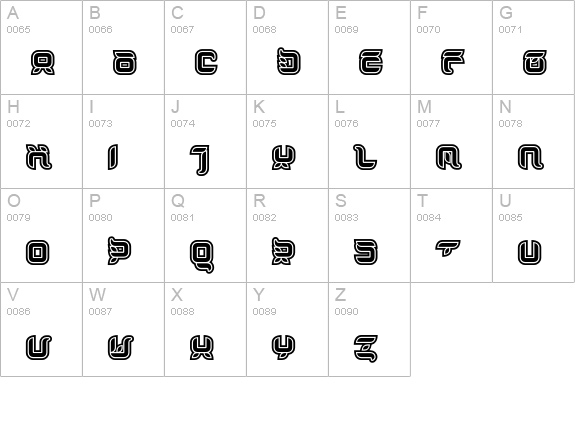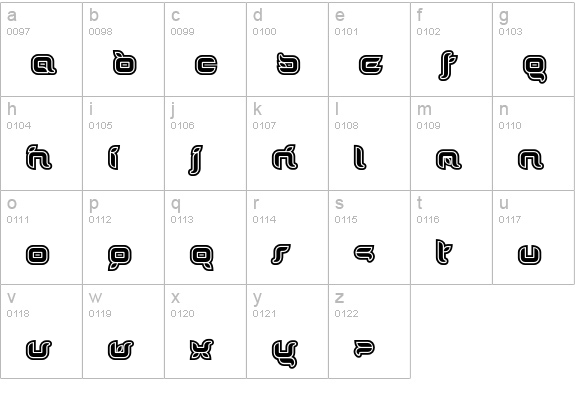
DorisOrange-Outline font is a modern and stylish typeface that adds a touch of sophistication to any design project. With its clean lines and bold appearance, this font is perfect for creating eye-catching headlines, logos, and branding materials. The unique outline design of DorisOrange-Outline font gives it a contemporary look that stands out from the crowd. Best of all, DorisOrange-Outline font is completely free to download at FontsMarket.com. Whether you're a professional designer looking to add a fresh new font to your collection or a hobbyist looking to spice up your creative projects, DorisOrange-Outline font is the perfect choice. Download it today and start exploring the endless design possibilities that this versatile font has to offer.